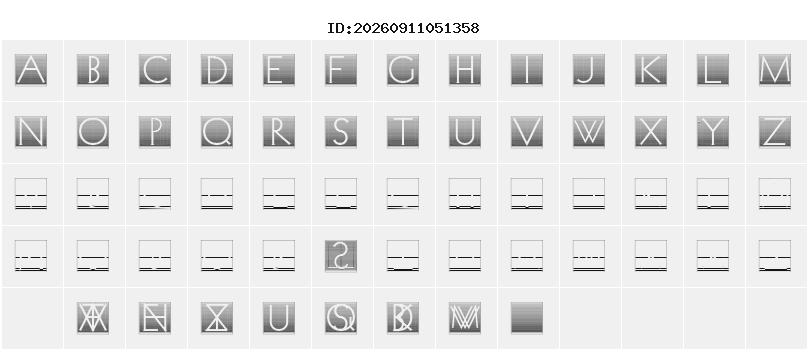
VenetianBlindInverse Preview
About VenetianBlindInverse.ttf
VenetianBlindInverse.ttf is a modern, elegant sans-serif font designed for ultimate readability and visual harmony. Perfect for branding, headlines, web design, and print materials.